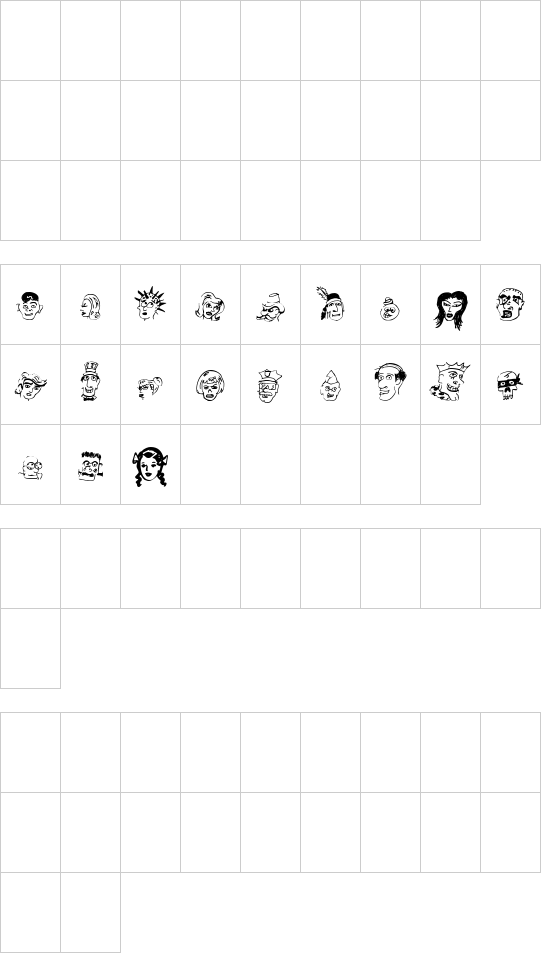
21 Heads is a dingbat font built from a collection of face and head illustrations rather than letters, offering a cast of different characters across the keyboard. Each glyph is a small portrait, making the set a quick source of ready-made faces.
Use it for character design, avatar graphics, playful posters, and decorative illustration accents. 21 Heads is free to download as a TrueType file, and you can preview it with your own text to see which heads appear on each key before dropping them into a layout or character sheet.